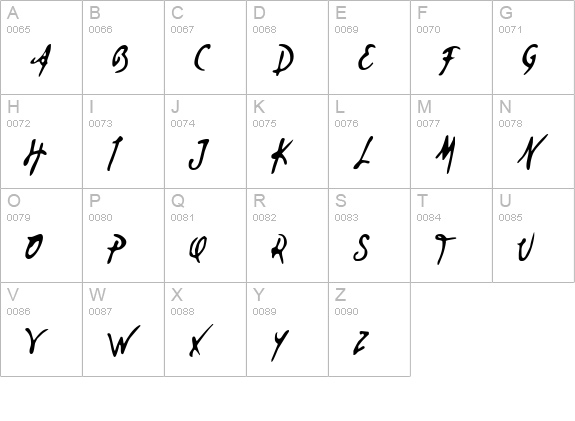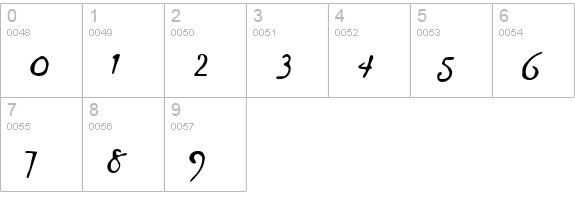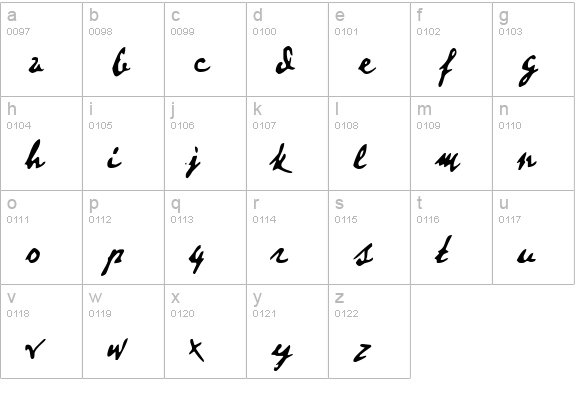
Dear Theo 2 Font Details
Dear Theo 2 is a sophisticated and elegant font that exudes charm and style. With its delicate lines and graceful curves, this font is perfect for adding a touch of sophistication to any project. Whether you're designing wedding invitations, branding materials, or social media graphics, Dear Theo 2 will elevate your designs to the next level. What makes Dear Theo 2 even more special is that it is available for free download at FontsMarket.com. This means you can access this stunning font without any cost, making it a valuable addition to your font collection. Embrace the beauty and versatility of Dear Theo 2 and bring a touch of elegance to your designs today.